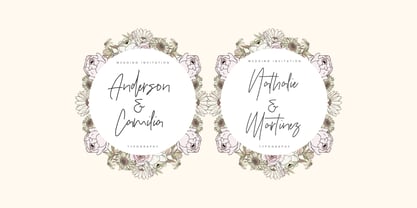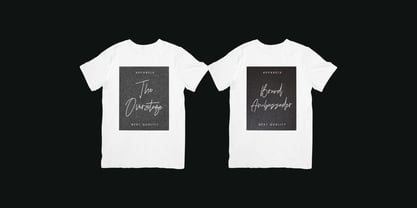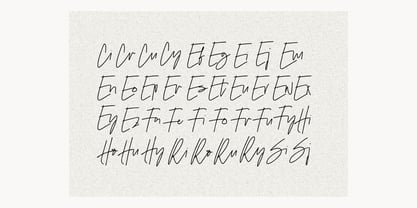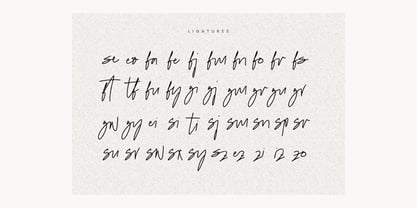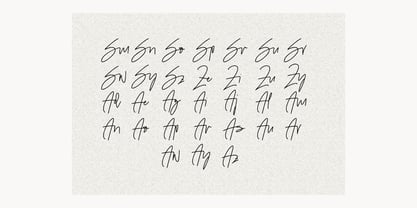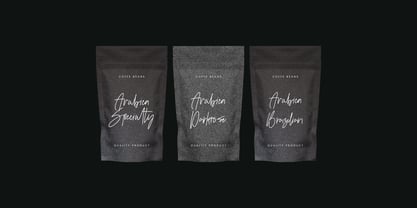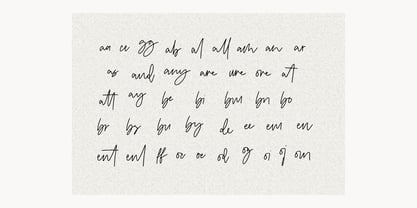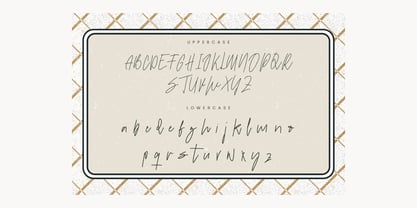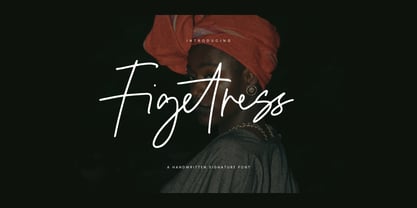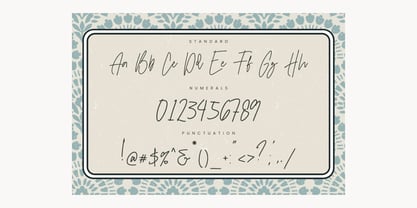
Figetress Signature
by Tebaltipis Studio
The Figetress Signature Font Family was designed by Dzulka Elfira and published by Tebaltipis Studio. Figetress Signature contains 1 styles. More about this family
A Handwritten Signature Font
Figetress Signature is a handwritten signature font designed to bring an elegant, personal, and authentic touch to every design. With its smooth strokes, natural letter flow, and artistic details, this font lends a premium feel to a variety of creative projects.
Figetress Signature Features :
Uppercase & Lowercase International Languange & Symbols Support Punctuation & Number PUA Unicode Range Standard Ligatures Discretionary Ligatures Stylistic Alternates Stylistic Set.
Figetress Signature was created for designers, business owners, and creators who want to create a classy and memorable visual identity.
Designers: Dzulka Elfira
Foundry: Tebaltipis Studio